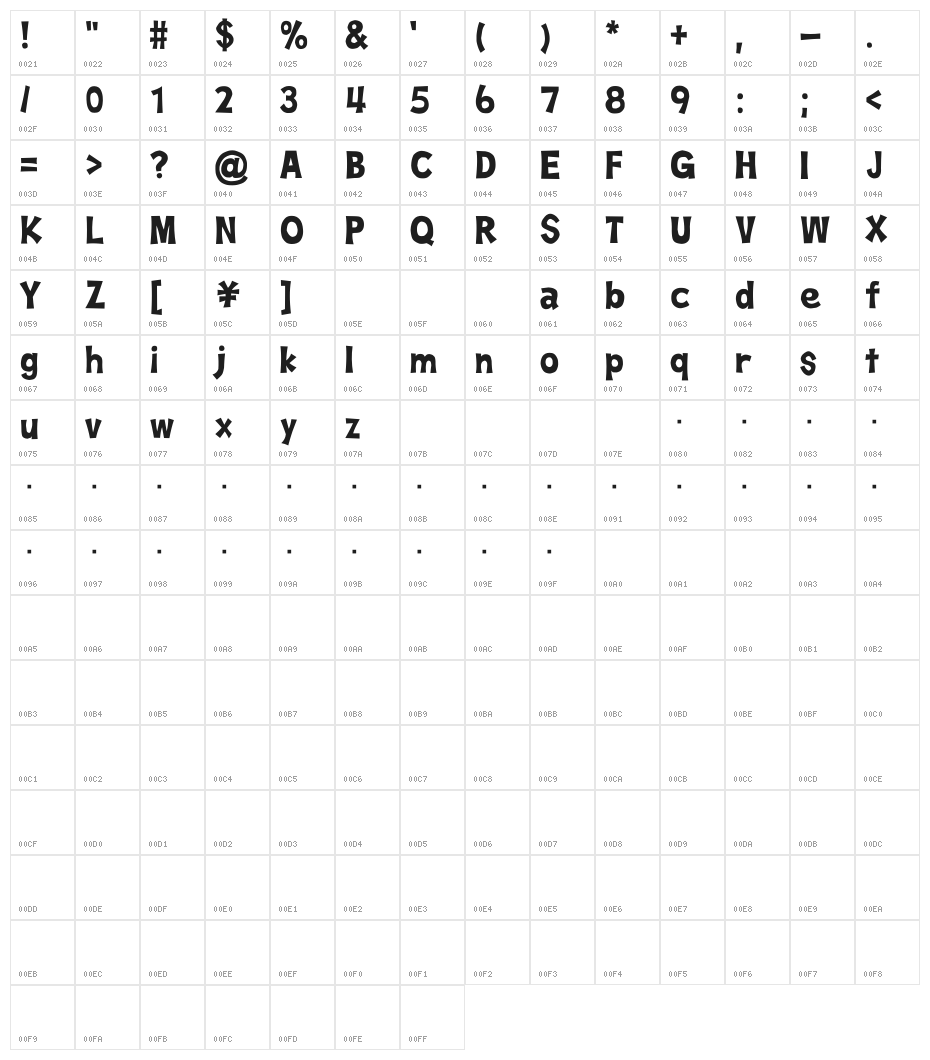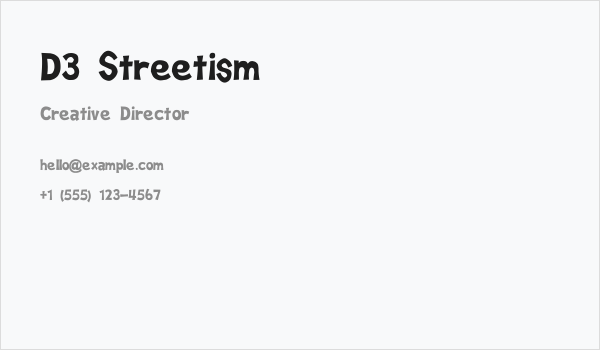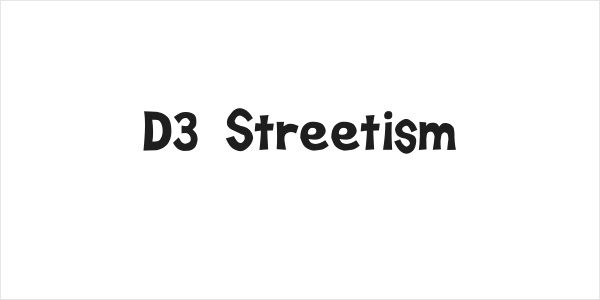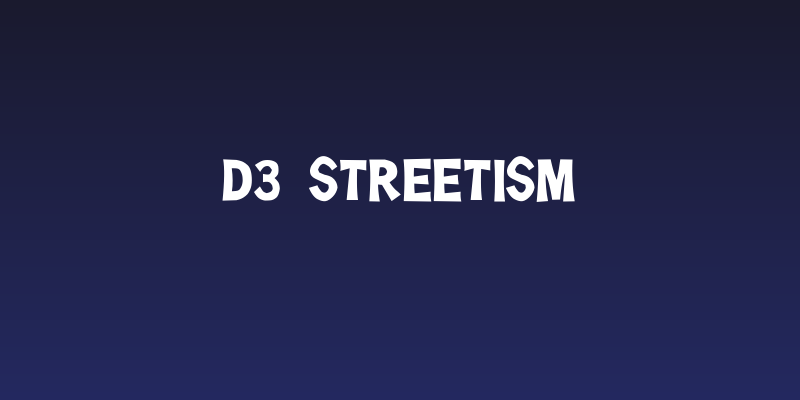
D3 Streetism Font
D3 Streetism Description
This font features a bold and playful style with a distinct urban flair. The characters are slightly irregular, giving them a hand-drawn appearance that adds a touch of whimsy and personality. The uppercase letters are robust and commanding, while the lowercase letters maintain a consistent, rounded form. Numbers and special characters follow the same playful aesthetic, making them stand out. The overall design is energetic and dynamic, perfect for projects that require a youthful and informal vibe. The font's unique character shapes and bold weight make it ideal for eye-catching designs.
| Overall Style | Modern, Urban |
| Proposed Projects | Ideal for street art designs, youth-oriented branding, posters, and playful merchandise. |